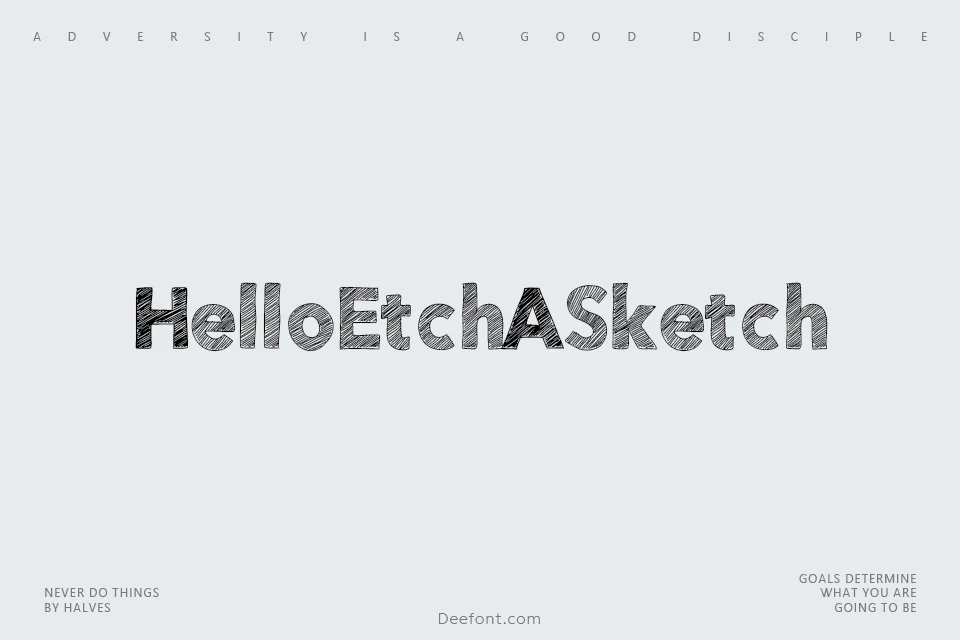
HelloEtchASketch Font
HelloEtchASketch is a playful display font inspired by the classic children’s toy Etch A Sketch, featuring distinctive diagonal hatch lines throughout its letterforms that evoke hand-drawn sketching. This charming typeface mimics the signature style and nostalgic aesthetic of the iconic toy, making it an ideal choice for designs seeking a fun and whimsical appearance. The font’s textured character adds warmth and personality to creative projects, from posters and titles to digital designs and merchandise. Perfect for designers who want to capture childhood memories and playful energy in their typography.